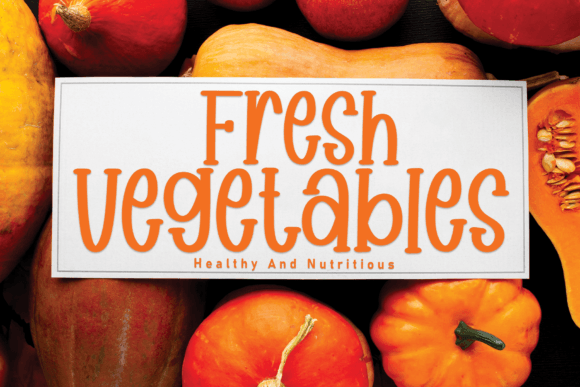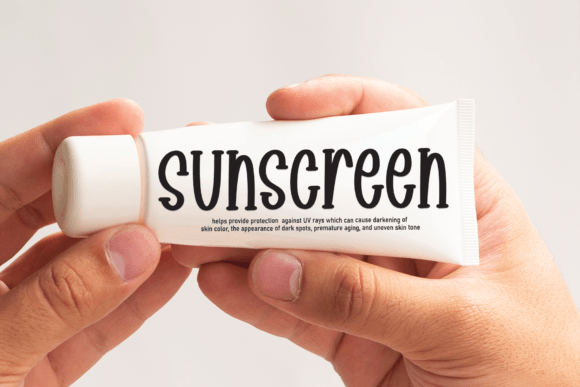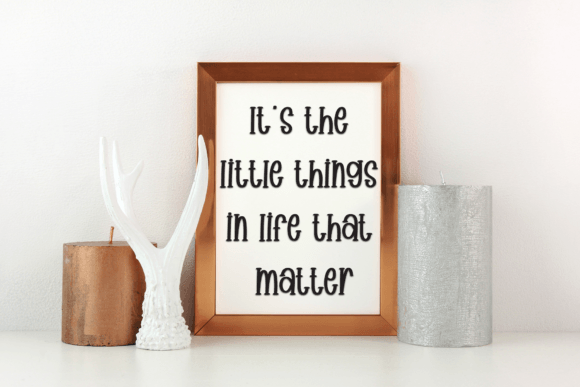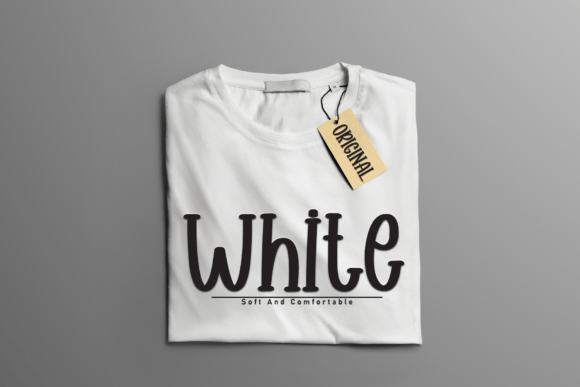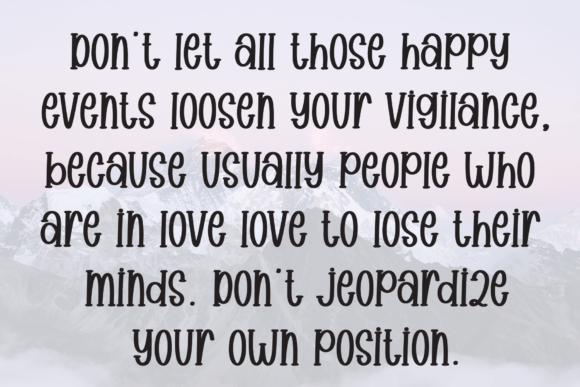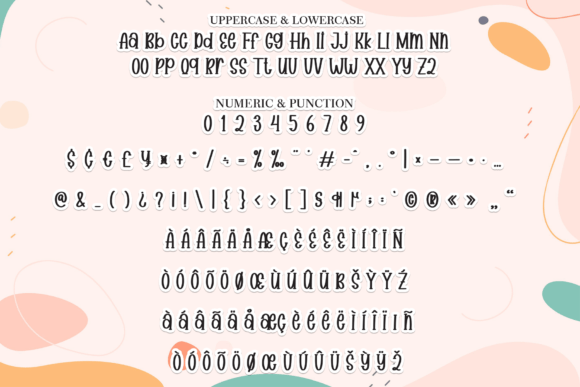
The Ultimate Guide to Always Happy Font: Elevate Your Designs with a Taste of Handwriting
Have you ever been in the middle of a design project, and suddenly, you’re stuck on finding the perfect font? I recall a recent experience where a client asked for a custom wedding invitation design, and I was determined to deliver something unique and personal. After hours of browsing through font libraries, I stumbled upon the Always Happy Font, and it instantly became the star of the show! ✨
In this article, we’ll dive into the world of Always Happy Font, exploring its features, uses, and what makes it a perfect addition to your design toolkit.
An Honest Review of Always Happy Font
• ✨ Unique and tasteful handwriting style that’s perfect for adding a personal touch to designs
• ✅ Encoded PUA Character, allowing for easy access to glyphs and stylistic alternates without additional design software
• ⚠️ Some users might find the font a bit too delicate for certain design projects, such as bold or industrial-themed designs
• 🤔 Limited availability of language support, which might be a concern for designers working with non-English languages
The Backstory Behind Always Happy Font
Imagine a designer who wanted to create a font that captures the essence of happiness and positivity. With a passion for handwriting and lettering, they crafted Always Happy Font to bring a touch of warmth and personality to designs. Although the font’s origins might be fictional, its impact on the design community is real.
Is Always Happy Font suitable for body text? While Always Happy Font is beautiful for headings and titles, it might not be the best choice for body text due to its delicate nature.